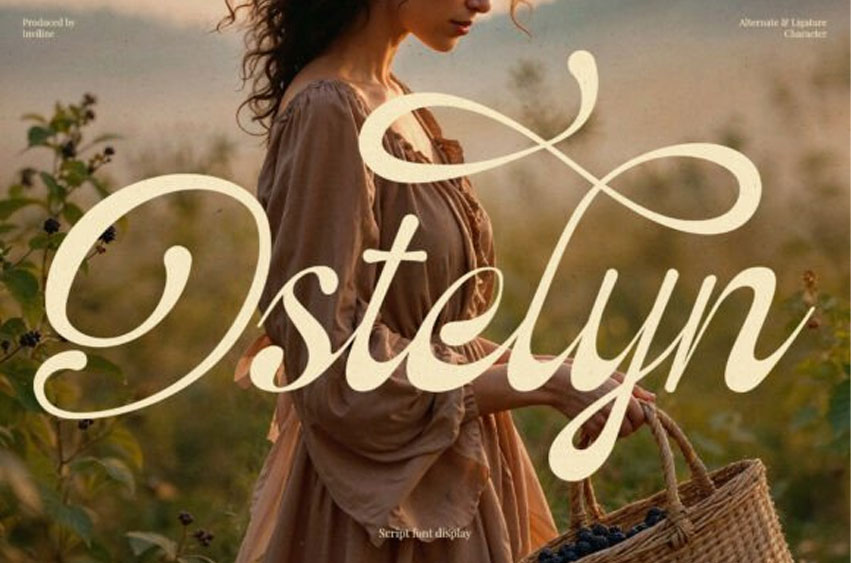
Ostelyn Regular Font
Ostelyn Regular Font is an elegant script font with romantic vintage flair, featuring graceful curves and charming swashes.
Perfect for wedding invitations, feminine branding, quotes, and lifestyle designs. Includes alternates and ligatures for creative typography compositions that feel timeless and delicate.